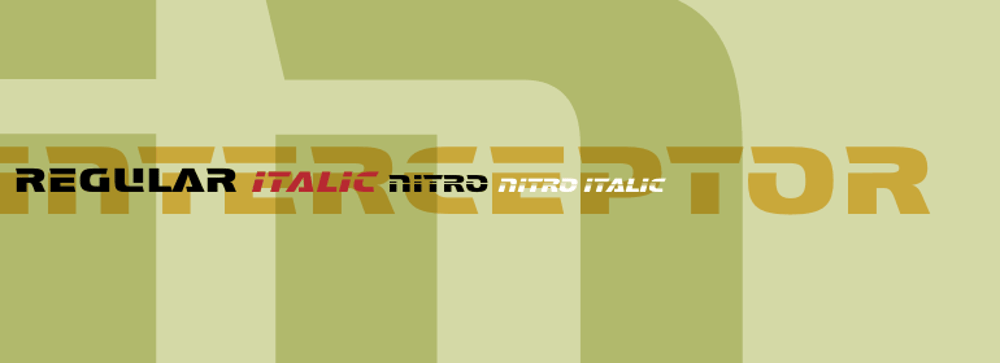
Interceptor Font Family was designed by Rian Hughes and published by Device. Interceptor contains 4 styles and family package options. Interceptor should be used on cherry-red jacked up Ferraris and brainless summer blockbuster action movies.